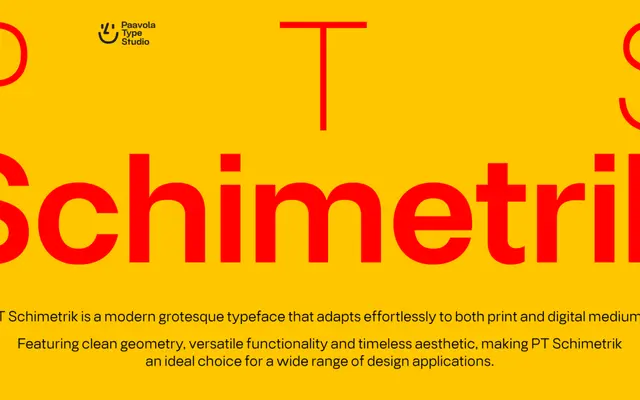
PT Schimetrik
A geometric grotesque with seven weights and ten stylistic sets, covering over 200 Latin-based languages for both print and digital use.
Seven weights from ExtraLight to Black, each with a matching italic, give this grotesque a practical range for text and display work. Ten OpenType stylistic sets offer meaningful flexibility, including single-storey alternates for both a and g, a spurless u, and alternate forms for Q, R, l and t. Discretionary ligature shortcuts for arrows and symbols add a layer of considered utility seldom seen at this price point.
The foundry describes it as a modern grotesque with clean geometry, and the stylistic sets reveal dual-storey defaults alongside geometric alternates, placing it squarely in the geometric grotesque tradition.